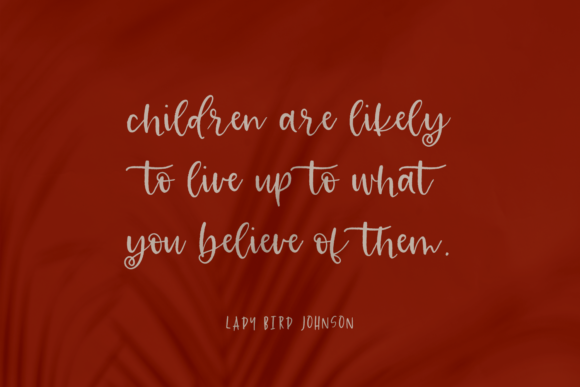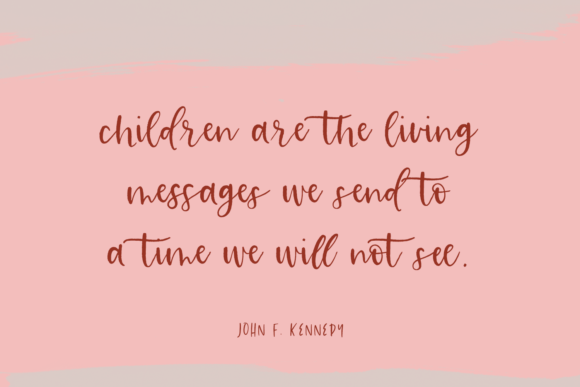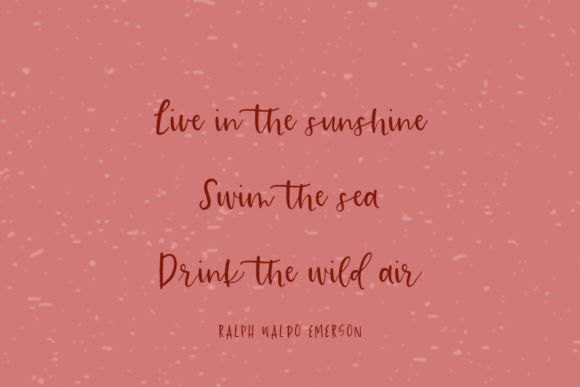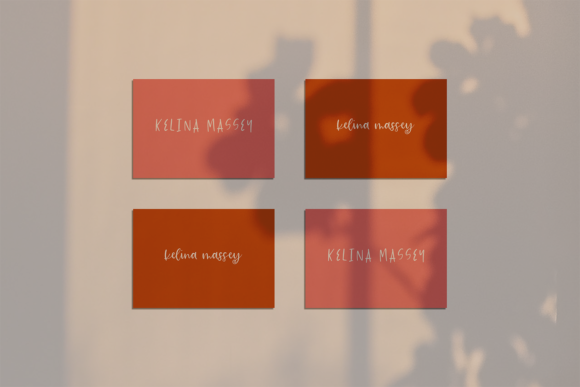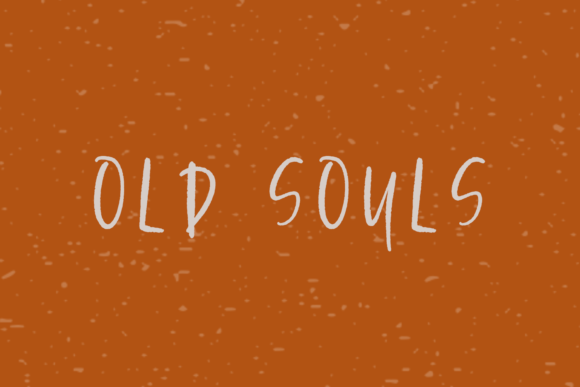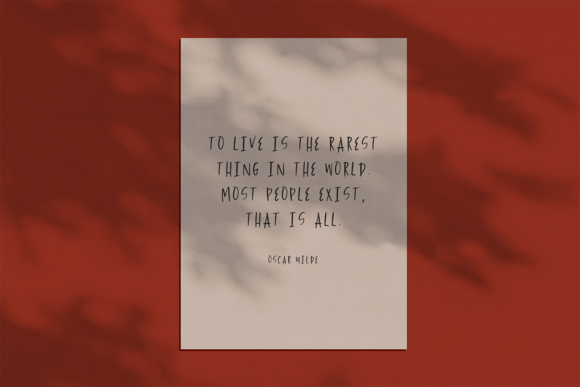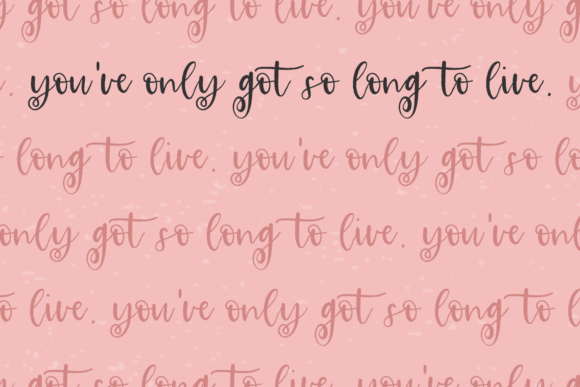
Wild Children Font
About Wild Children Font
Wild Children is an adventurous script that evokes the feeling of nostalgia. It will add a personal touch to any design idea!